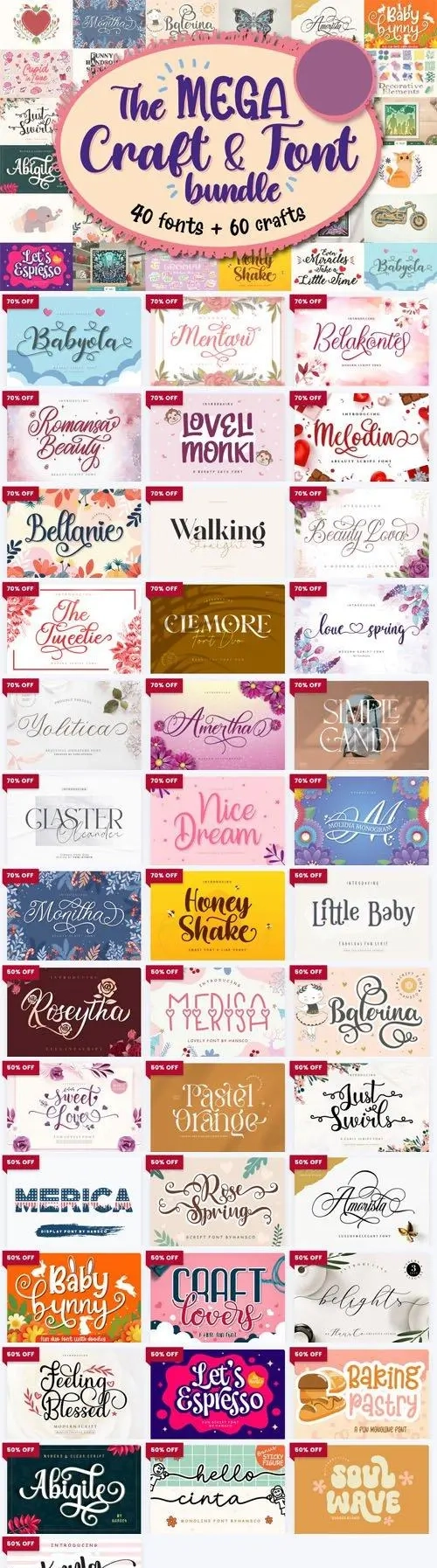
The Mega Font & Craft Bundle – 40 Premium Fonts & 60 Premium Crafts
The Mega Font & Craft Bundle offers a curated selection of 40 premium fonts and 60 premium crafts designed to elevate your creative projects. Each font in this collection is crafted with precision, ensuring a unique touch to your designs.
• 40 premium font styles including script, serif, sans-serif, and display fonts.
• 60 premium craft designs suitable for various applications.
• Multiple weights and styles available for versatility.
• Utilize the fonts for creating eye-catching logos and branding materials.
• Incorporate the craft designs in digital scrapbooking and print projects.
• Experiment with different weights and styles to find the perfect match for your project.